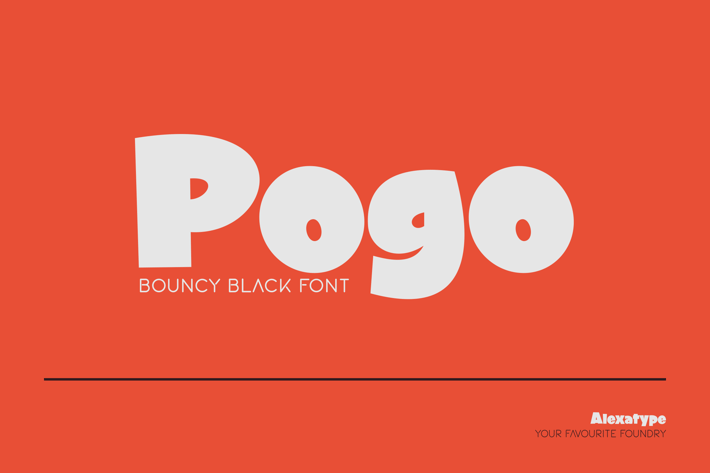
Pogo - Bouncy Black font
POGO is a bouncy, bold sans-serif display font designed to capture attention instantly. With its heavy weight, soft curves, and compressed structure, it delivers high visibility in loud, energetic messages—perfect for flash sales, sports headlines, event posters, and youth-focused brands.
Its geometric form gives it strength, while the quirky roundness adds personality and friendliness. Best used in short, punchy phrases or all-caps display work, POGO is built to grab eyeballs in seconds.
POGO makes your message bounce off the page—visually loud, irresistibly fun, and built for digital screens and street-level promos. It’s a heavy hitter that makes your offer impossible to miss.
Extra Bold Sans Display – Fat and punchy letterforms perfect for shouting your message
Compressed Width with Round Ends – Saves space while retaining friendliness
Great for Posters, Sales, and Sports – Built for bold communication
Uppercase-Focused Font – Best used in loud headlines and energetic branding
Minimalist But Playful – A clean, simple shape that still feels alive
Pairs Well with Slim Sans or Clean Scripts – For contrast in layouts and modern pairings